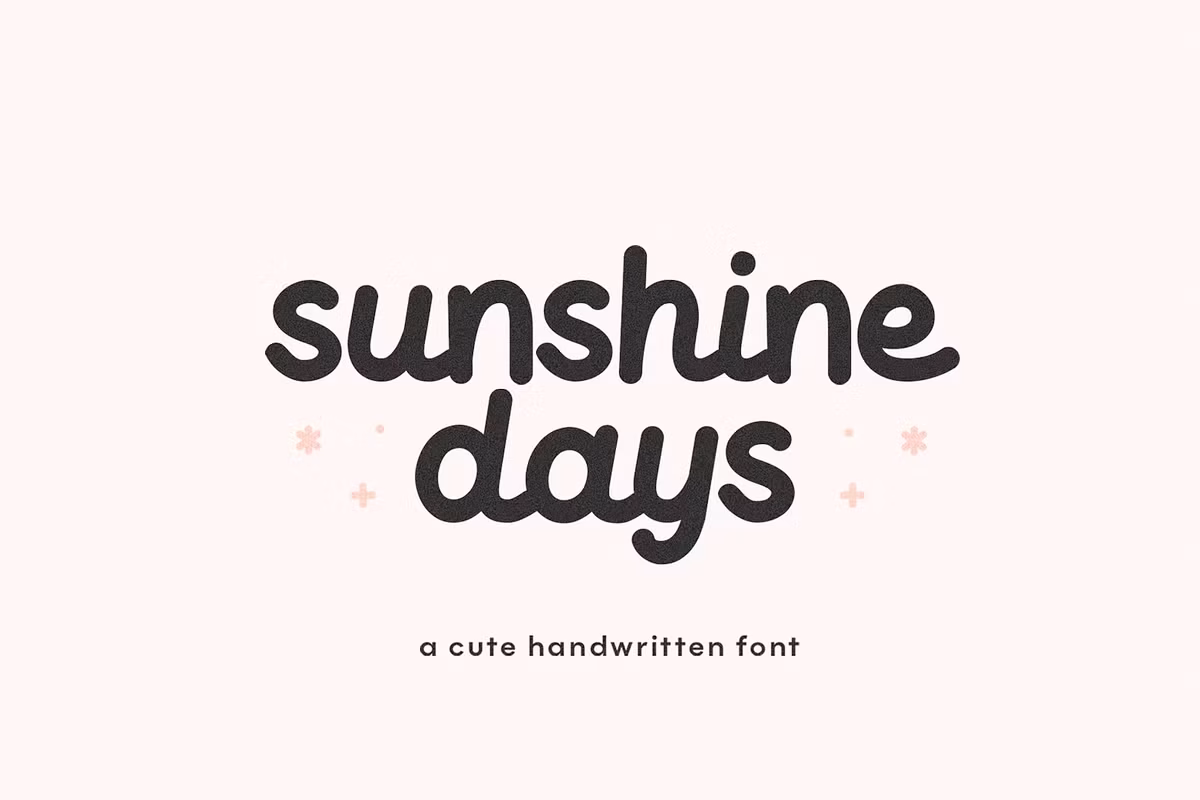
This cheerful font is perfect for children's party invitations, summer camp branding, daycare center materials, ice cream shop signage, beach resort marketing, sunny vacation promotions, playful greeting cards, and joyful social media graphics. Its delightful character makes it ideal for projects requiring happiness, optimism, and carefree summer vibes.
Sunshine Days Cute Script Font is exciting because it captures the pure joy and carefree spirit of perfect summer days with letterforms that dance across the page like sunlight through leaves. The font features playful curves, bouncing baselines, and cheerful character variations that instantly evoke feelings of warmth, laughter, and endless possibility. Its infectious optimism transforms ordinary text into celebrations of life's brightest moments.
The Sunshine Days Cute Script Font family typically includes regular and bold weights, along with decorative flourishes, sunny ornaments, and playful alternate characters. Many versions feature cheerful symbols, connecting ligatures, and special summer-themed glyphs that enhance the joyful aesthetic.
Whether you're creating summer marketing campaigns, children's entertainment materials, or feel-good lifestyle brands, Sunshine Days Cute Script Font Free Download provides authentic happiness with professional charm. This typeface transforms everyday communications into uplifting experiences that resonate with audiences seeking joy, positivity, and the simple pleasures of sunny days. Its distinctive character adds immediate warmth and cheer to any project while maintaining excellent readability, making it an indispensable resource for designers who specialize in Sunshine Days Cute Script Font Free Download and creating meaningful connections through positive, life-affirming design.